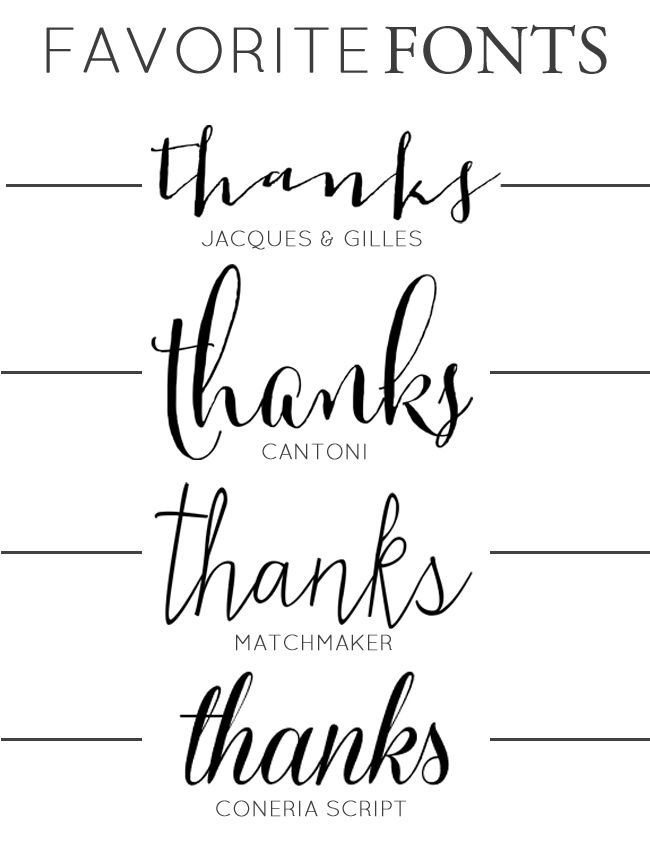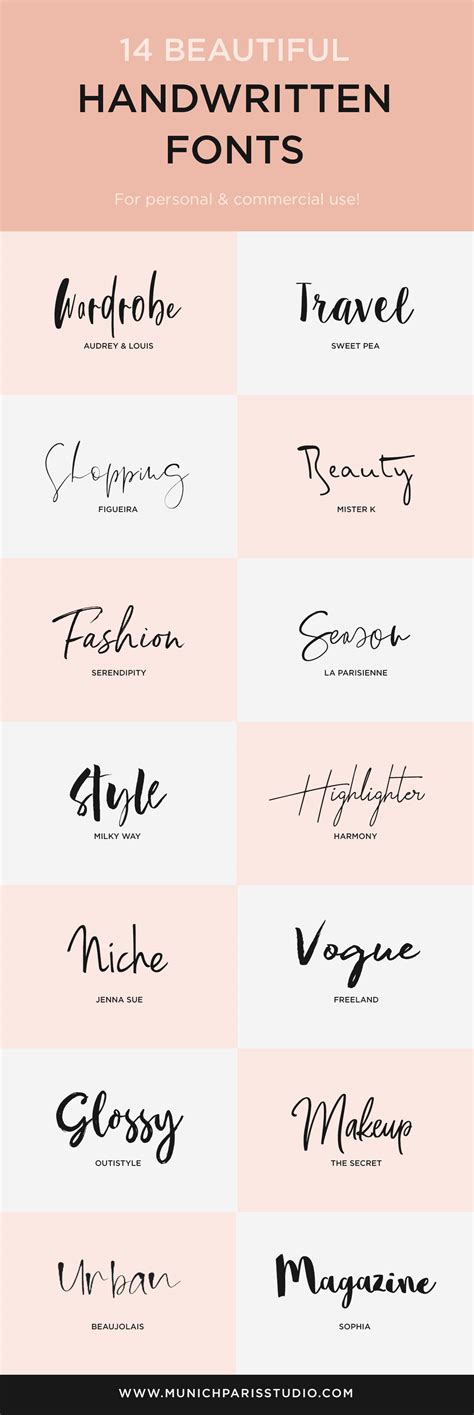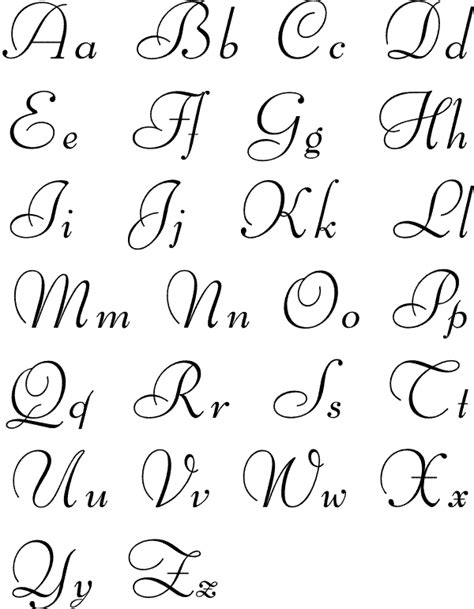
The victor handwriting font has a truly handwritten feel; By installing or using this font, you are agree to the product. Writing fonts include both printing and cursive styles and is less artistic than formal calligraphy.
Actually, the least thing you think of when you want to communicate with your loved ones is a paper letter. Handwriting fonts are written with a pen, pencil, or marker.
See more ideas about fonts, cool fonts and best free fonts. Handlee is a loosely font based on the designer's own handwriting. Download free handwritten fonts at urbanfonts.com our site carries over 30,000 pc fonts and mac fonts. Nice is a simple quirky child like handwriting typeface perfect for any fun quirky design work! Stages of writing, geometric font, free typeface, font art, math books, book posters, free fonts download, cool fonts, awesome fonts. The best selection of handwriting fonts for windows and macintosh. Download free handwritten fonts for commercial and personal use. Handwriting fonts are written with a pen, pencil, or marker. Archive of freely downloadable fonts. Browse a unique collection of the best handwritten fonts and thousands of free typefaces to download. The theme of this font are casual, modern, elegant, luxury, handwritten, classic and simple lettering. Ready to personalize and share in facebook and twitter. Atakana handwriting font script by afkari studio kanatype.com.
Fonts of this category «handwritten fonts». Handlee is a loosely font based on the designer's own handwriting. Our handwritten fonts are an opportunity to address personal and loving issues.
Quillbacks script font is a modern handwriting calligraphy font. The theme of this font are casual, modern, elegant, luxury, handwritten, classic and simple lettering.
It comes in a clean and texture.
Handlee is a loosely font based on the designer's own handwriting. Handwriting fonts are written with a pen, pencil, or marker. Writing fonts include both printing and cursive styles and is less artistic than formal calligraphy. This font would be a great choice for illustrations or designs that really wanted to recreate a diy feel. Nice is a simple quirky child like handwriting typeface perfect for any fun quirky design work! The best selection of handwriting fonts for windows and macintosh. You can customize your experience with live font previews. History of civil script and modern cyrillic type. Demo donationware free free for personal use public domain, gpl, ofl shareware. How to draw sweet font curves (spanish). Within that broad category you'll find a range of styles that reflects the variations and subtle differences found in actual handwriting. Actually, the least thing you think of when you want to communicate with your loved ones is a paper letter. Archive of freely downloadable fonts.
Intro ( 0:00 ) handwritten fonts are the way to go if you want to add a special touch to your designs.
We've gathered a wide variety of elements ,from dry brush, markers, decorative, etc. Atakana handwriting font script by afkari studio kanatype.com. In the age of social media and smartphones, probably, there are people, who have never heard about handwritten letters. Actually, the least thing you think of when you want to communicate with your loved ones is a paper letter. Download free handwritten fonts for commercial and personal use. Intro ( 0:00 ) handwritten fonts are the way to go if you want to add a special touch to your designs. Font name newest most downloads. Handwriting fonts bring a new artistry to fonts, as they are actually based on people's individual handwriting. You can customize your experience with live font previews. It comes in a clean and texture. The essentially endless variations provide an opportunity for real individualization. Within that broad category you'll find a range of styles that reflects the variations and subtle differences found in actual handwriting. The style of this font are casual, lovely, contemporary, modern, elegant, luxury and classic brush font.
This fontlist includes typefaces such as terry junior, ff uberhand, and ernest and emily. And we're sure you'll find something to include in your next here's our list of the 10 best handwritten fonts 2020.
Westerners handwriting font is a handwriting script font with a unique light weight signature style. Our handwritten fonts are an opportunity to address personal and loving issues.
Do you like handwriting fonts? Within that broad category you'll find a range of styles that reflects the variations and subtle differences found in actual handwriting.
Within that broad category you'll find a range of styles that reflects the variations and subtle differences found in actual handwriting. Download free handwritten fonts for commercial and personal use.
Atakana handwriting font script by afkari studio kanatype.com. Download and install free handwritten fonts of the best quality from free fonts and use on your own personal and business related design purposes.
Fonts of this category «handwritten fonts». In the age of social media and smartphones, probably, there are people, who have never heard about handwritten letters.
It comes in a clean and texture. Download the best free handwritten fonts, that are hand picked collections by our editorial experts and can be used on mac, pc, website.
Added by milo yost (1 style). The essentially endless variations provide an opportunity for real individualization.
The uneven letters (with bold and thinner letters) it looks as though someone dipped a quill in ink and scratched the font onto a paper. Font name newest most downloads.
Writing fonts include both printing and cursive styles and is less artistic than formal calligraphy. It comes in a clean and texture.